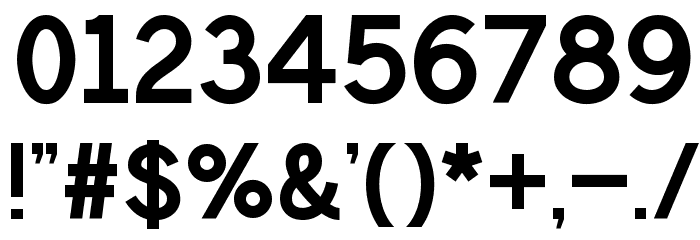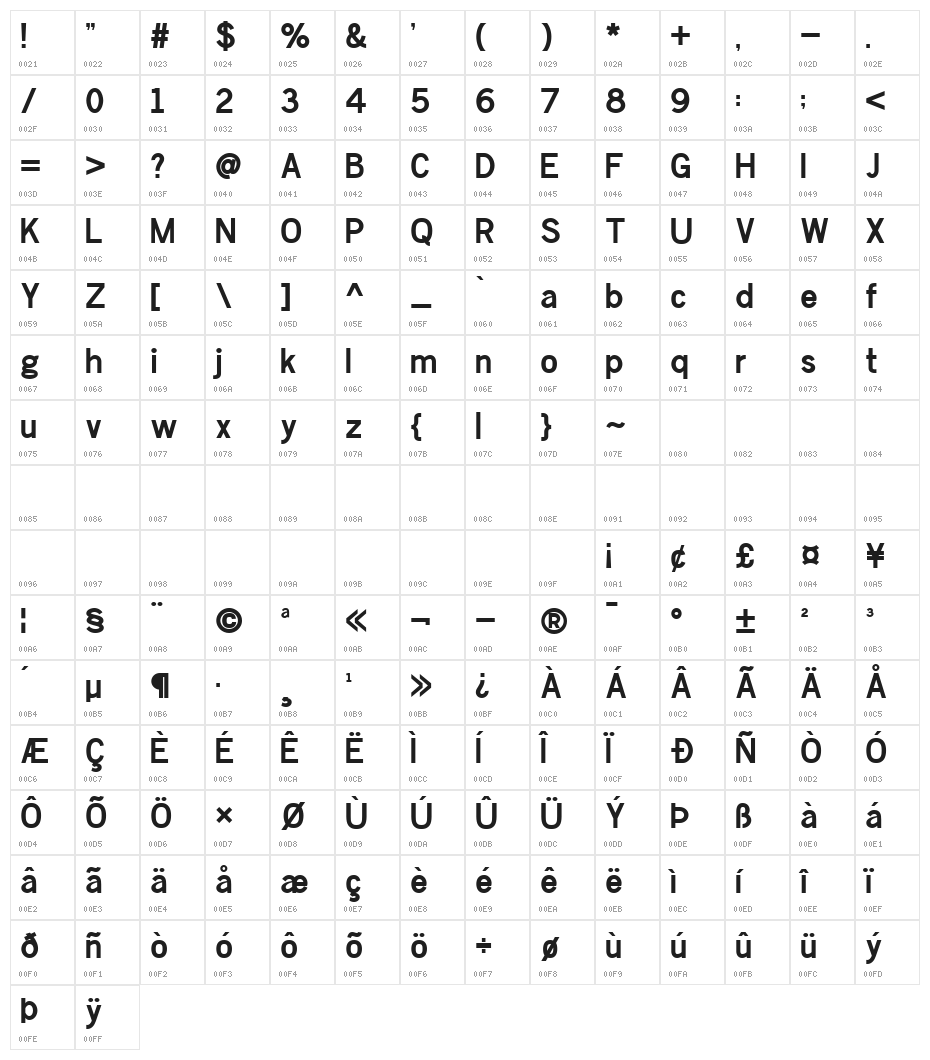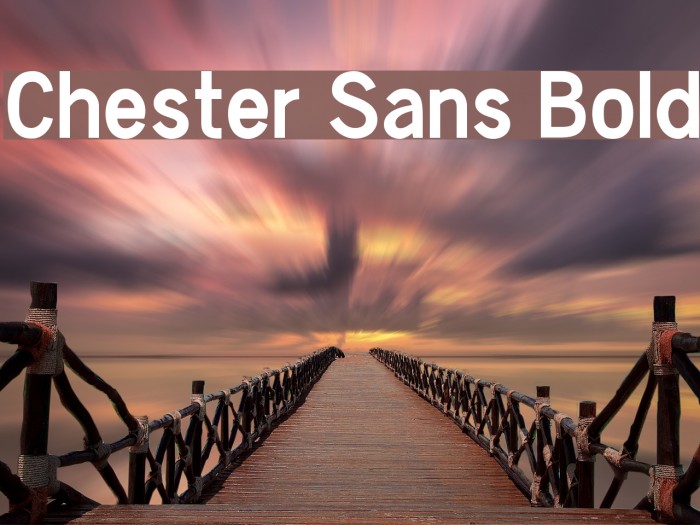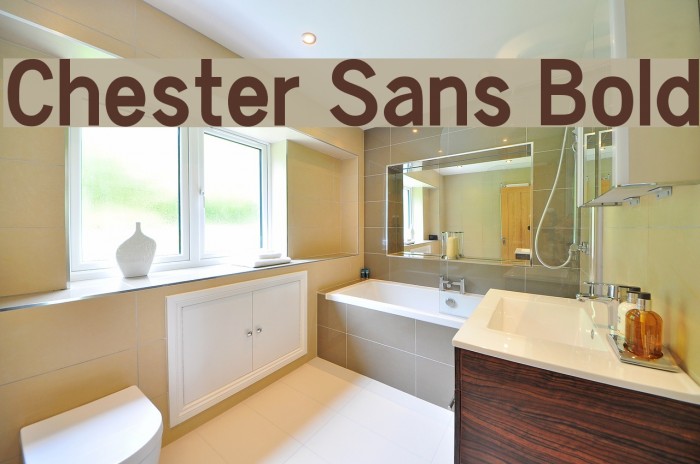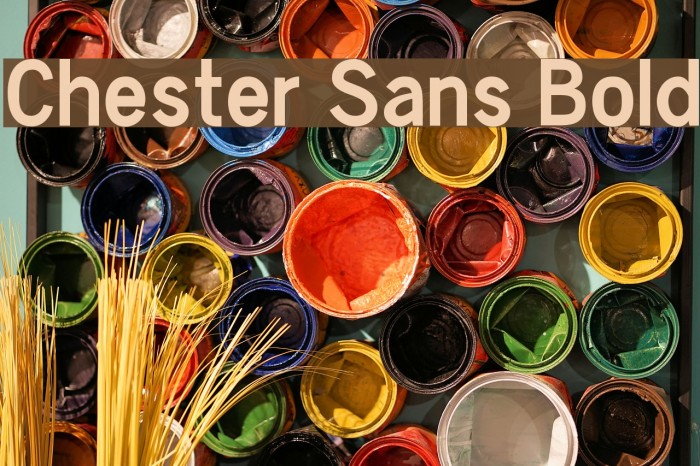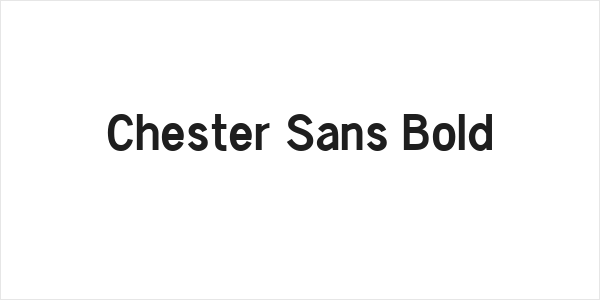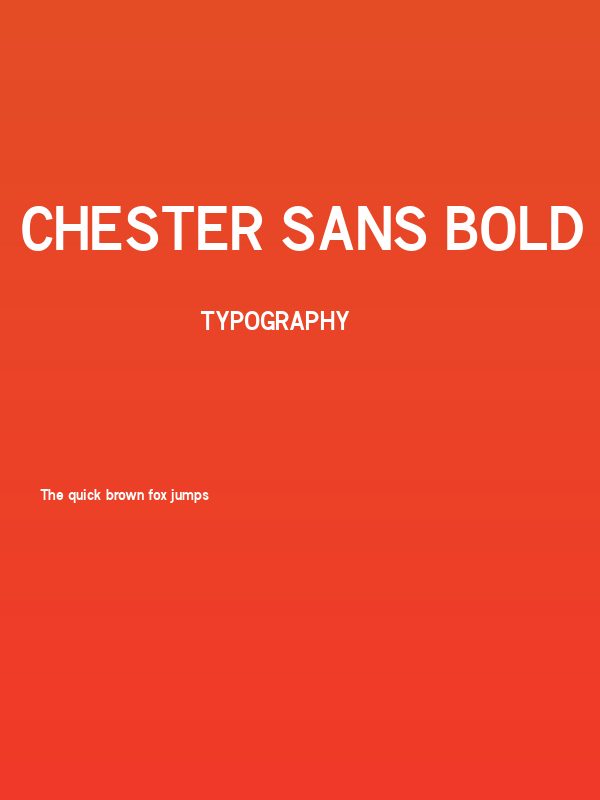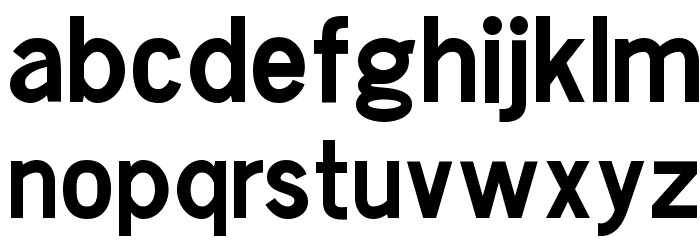
Chester Sans Bold Font
Chester Sans Bold Description
This typeface features a bold and clean design with a modern sans-serif style. The characters are well-defined with a uniform stroke width, providing a strong and impactful appearance. The uppercase and lowercase letters are balanced, making it versatile for various design needs. The numerals are clear and easy to read, while the special characters maintain consistency with the overall style. This font is suitable for projects requiring a contemporary and professional look.
| Proposed Projects | Ideal for branding, advertising, headlines, and digital content where a strong and modern presence is desired. |